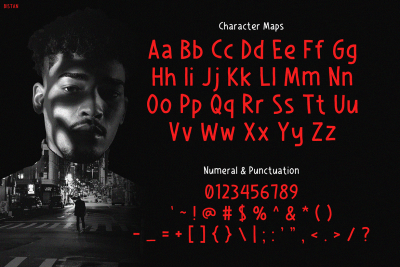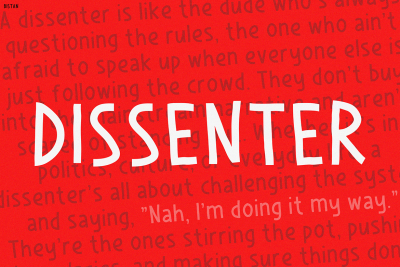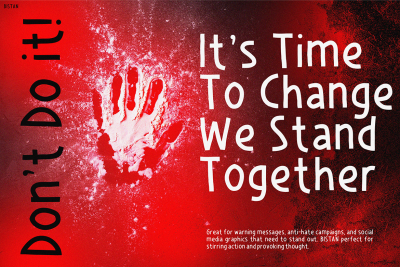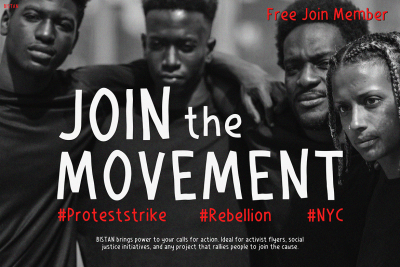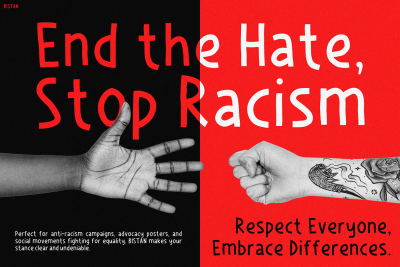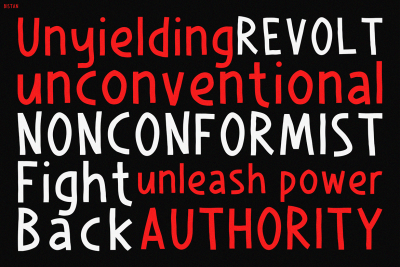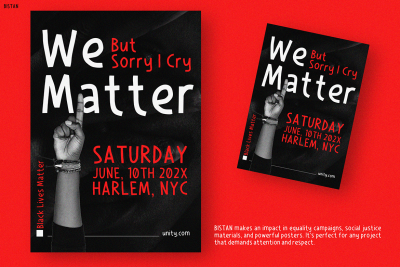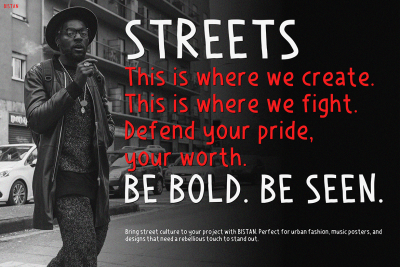
Graffiti Font BISTAN: A Bold Typeface for Unstoppable Expression
Graffiti Font BISTAN is more than just a typefaceโitโs a visual declaration of power, defiance, and creativity. At first glance, its raw, hand-drawn aesthetic pulls you in with its unapologetic energy. Not only does it break free from sterile design trends, but it also delivers a human, emotional touch that resonates with real voices. As a result, your message wonโt just be seenโit will be felt.
What makes BISTAN truly unique is its imperfect, yet purposeful letterforms. While other fonts may rely on symmetry and polish, BISTAN thrives in its bold irregularity. Each stroke and curve feels alive, almost as if sketched during a moment of passion. Therefore, itโs perfect for protest art, streetwear branding, music promos, or any creative that needs to stand out. Moreover, its uneven rhythm and hand-crafted structure give your work a rebellious edgeโone that refuses to blend in.
Additionally, BISTAN is versatile. Despite its rough and expressive style, itโs surprisingly readable, making it suitable for both headlines and shorter body text. Consequently, your designs will maintain clarity while radiating attitude. From awareness campaigns to underground zines, BISTAN amplifies your vision with an intensity that speaks volumes.
Graffiti Font BISTAN Perfect For
BISTAN is ideal for creatives, activists, streetwear designers, musicians, and campaign organizers. If your work involves storytelling with impact, this font is your new go-to. For example, graphic designers crafting bold posters, social justice advocates creating rally visuals, or musicians designing album covers will all find BISTAN to be a game-changer. Furthermore, street fashion brands aiming to express identity and grit will appreciate how easily this font blends into urban aesthetics.
In the end, BISTAN isnโt just a fontโitโs a symbol of expression. Whenever you need to push boundaries and be unapologetically bold, this graffiti font delivers. So why settle for generic typography when you can turn every project into a powerful visual statement? Embrace the chaos. Amplify your message. Let Graffiti Font BISTAN do the talking.